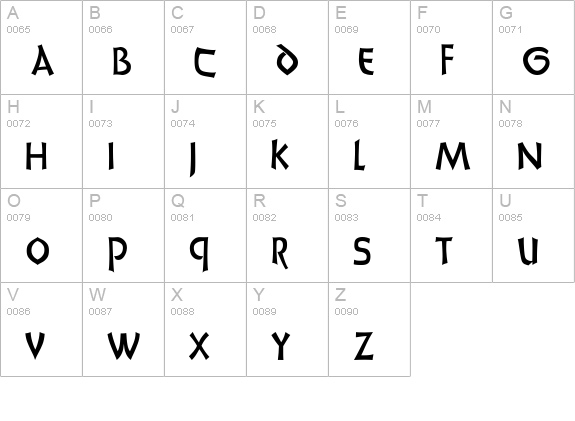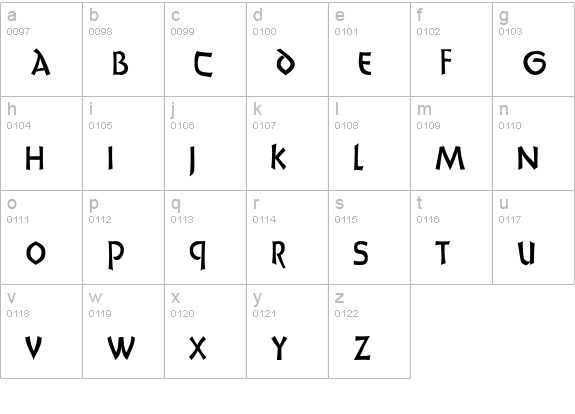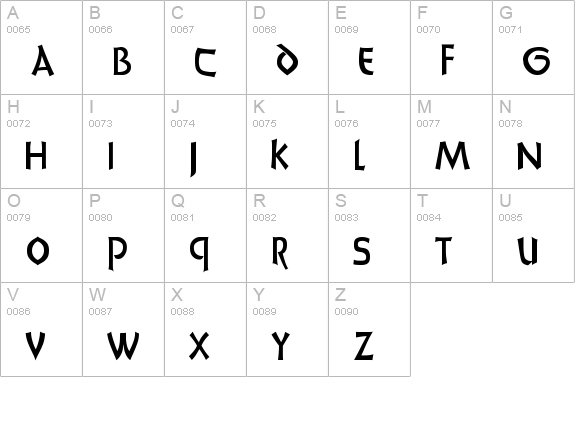
UnciaDis font is a stunning typeface that effortlessly blends elegance and uniqueness. With its bold and striking letterforms, this font is sure to captivate any reader. The UnciaDis font is perfect for a wide range of creative projects, whether it's designing eye-catching logos, creating visually appealing posters, or crafting beautifully crafted invitations. Its versatility allows for endless possibilities, making it an essential addition to any designer's toolkit. What sets UnciaDis font apart is not only its impeccable design but also its accessibility. It is freely available to download at FontsMarket.com, making it easily accessible to designers and enthusiasts alike. This means that anyone can enjoy the beauty and functionality of UnciaDis font without any restrictions. The careful attention to detail in each letterform ensures legibility, making UnciaDis font an excellent choice for both print and digital media. Its clean lines and smooth curves create a harmonious balance, resulting in a visually pleasing reading experience. Whether you are designing a website, creating a branding concept, or crafting a captivating headline, UnciaDis font will undoubtedly elevate your project to new heights. Its bold and confident presence demands attention, making a lasting impression on your audience. In conclusion, UnciaDis font is a must-have for any designer seeking a versatile, elegant, and free typeface. Its availability for download at FontsMarket.com ensures that you can easily incorporate this font into your creative endeavors. With UnciaDis font, your designs will exude sophistication and style, leaving a lasting impact on anyone who encounters them.